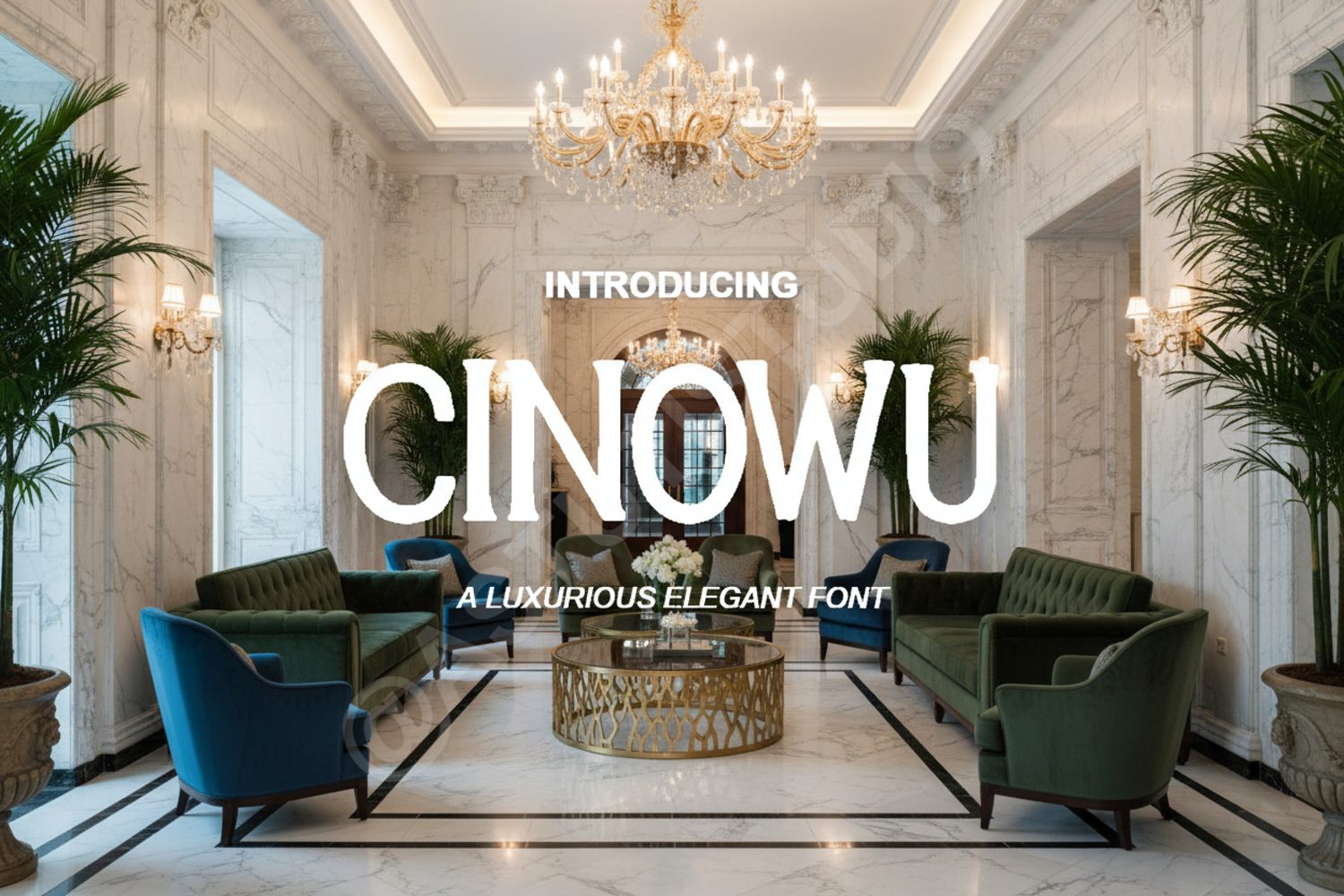
Cinowu - Modern Elegant Serif Font
Cinowu
Experience the sophisticated charm of Cinowu, a premium serif font designed to bring a touch of luxury and modern refinement to your creative projects. With its clean lines and unique character shapes, Cinowu strikes the perfect balance between classic elegance and contemporary style, making it a versatile choice for designers seeking high-end aesthetics.
- Premium Branding and Visual Identity
- Elegant Wedding Invitations and Event Stationery
- Luxury Product Packaging and Labeling
- Professional Editorial Design and Magazine Layouts
- Sophisticated Social Media Graphics and Marketing
- Modern Website Headers and Digital Content